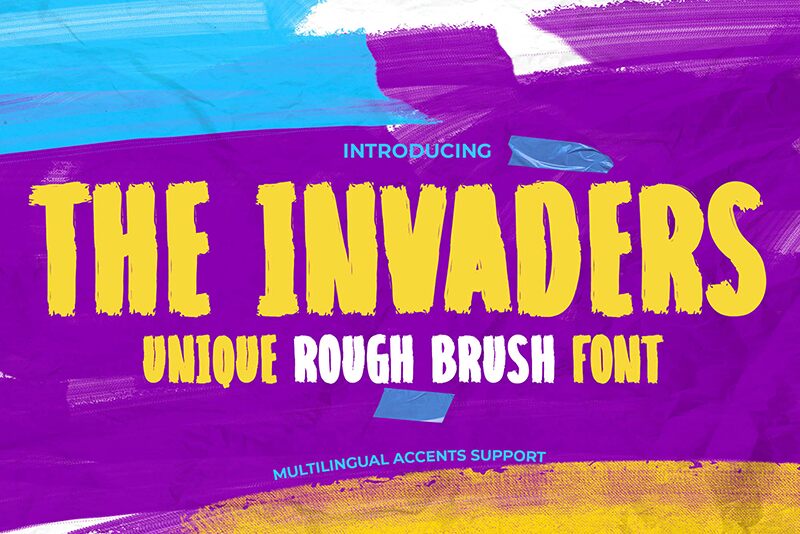
Embrace the raw energy of The Invaders, a semi-light, extra-condensed font crafted by the innovative Gassstype. With its rough brush strokes, this typeface captures the essence of rebellion and artistic freedom.
Perfect for designers seeking to infuse their work with a sense of urgency and edginess, The Invaders stands out in any creative endeavor-from eye-catching branding to impactful poster design. Its unique style adds an unrefined charm to your projects while ensuring legibility and distinction.
Unleash the potential of this font as it boldly transcends conventional boundaries, making it an indispensable asset for any avant-garde typography collection.